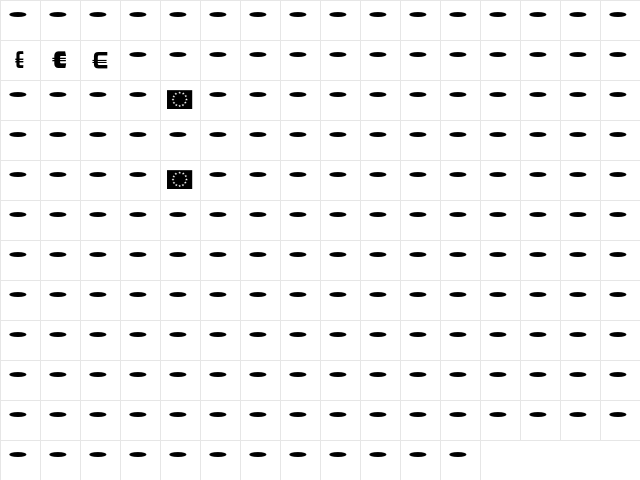
ModerneGothics-Euro Regular Font Preview
ModerneGothics-Euro Regular
ModerneGothics-Euro Regular Font Details
Design Context for ModerneGothics-Euro Typeface
ModerneGothics-Euro takes a clean, functional approach — its unadorned letterforms prioritise legibility and work reliably across screen and print environments.